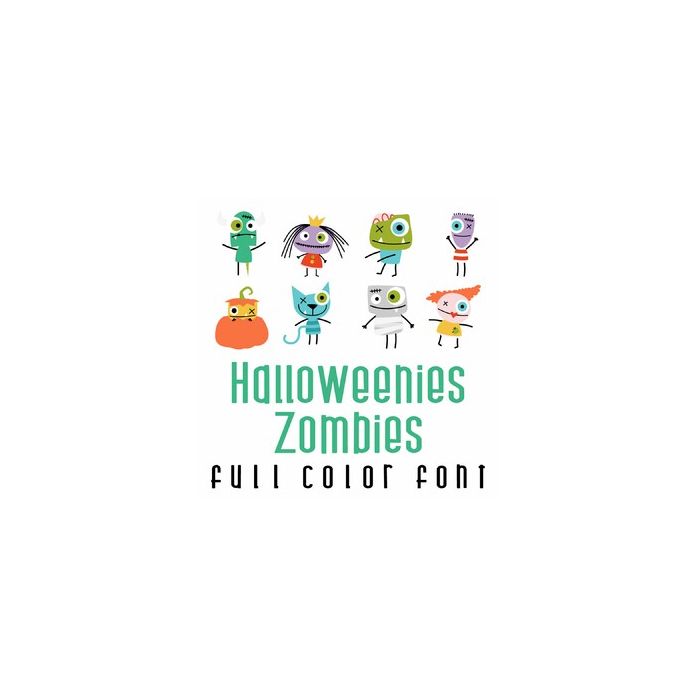
This adorable full color doodlebat font features adorable stick figure zombies, perfect for Halloween. Perfect for cards, crafts, gifts, decor, scrap book pages, planner stickers and more!